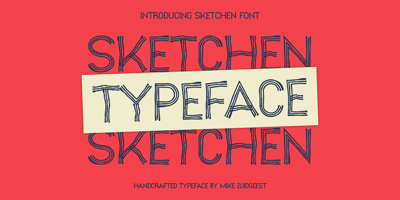
Sketchen Font Family was designed by Mike Zuidgeest and published by Mike Zuidgeest. Sketchen contains 1 styles and family package options. Hey there! As the proud creator of Sketchen, I’m stoked to introduce you to my latest font creation! Sketchen is a sketch style font that’s just perfect for outdoor advertising and menus. Imagine a beachy vibe, summer vibes, and a whole lot of fun – that’s what Sketchen brings to the table!I designed Sketchen to capture the essence of summertime and the carefree attitude of beach life. With its playful, hand-drawn style, Sketchen adds a whimsical touch to any design project. Whether you’re creating a menu for a tiki bar or promoting a surf competition, Sketchen is the perfect font to convey a sunny, laid-back feeling.Sketchen’s bold, eye-catching letters ensure that your designs won’t be missed. And with its relaxed, playful vibe, it’s sure to make a splash in any setting. So why not give Sketchen a try and see what kind of summery designs you can come up with?With Sketchen, you can add a touch of fun to all your outdoor advertising and menu design projects. So let your creativity run wild and see where Sketchen takes you!